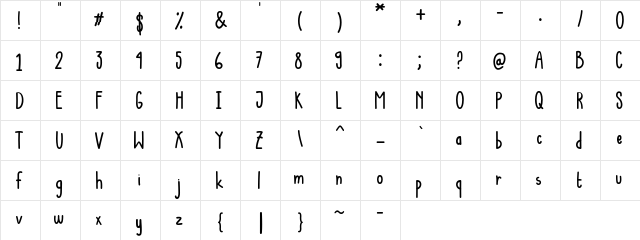
NEW STUDENT Regular
| Designer | Memet Saputro |
Design Context for NEW STUDENT Typeface
NEW STUDENT takes a measured approach to typography — its balanced proportions and neutral character make it a reliable workhorse for both digital and print work.